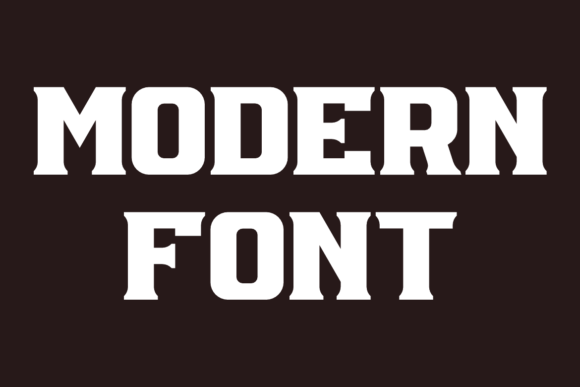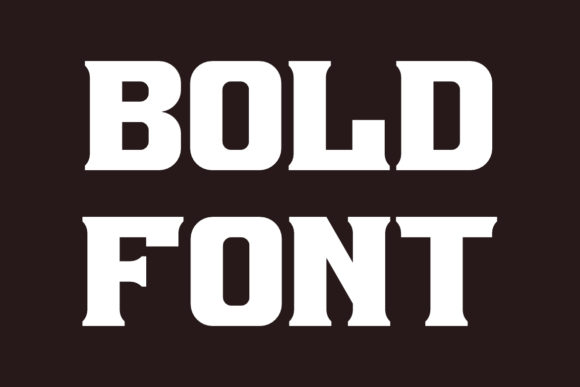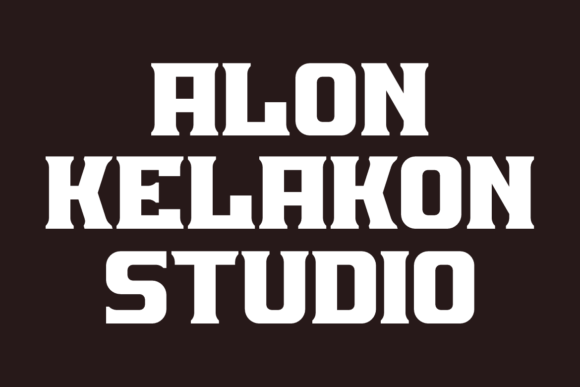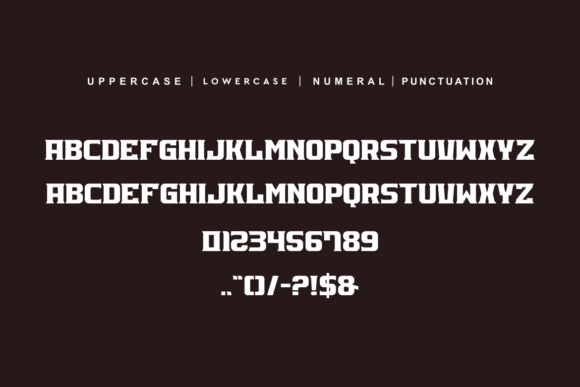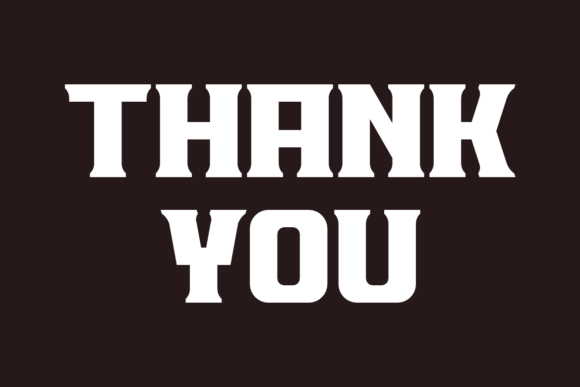
Introduction to Qulizer Font
Qulize ris a bold and assertive sans serif font.
It is perfect for use on billboards, social media, posters, business cards, web design and so much more .
Key Features of Qulizer Font